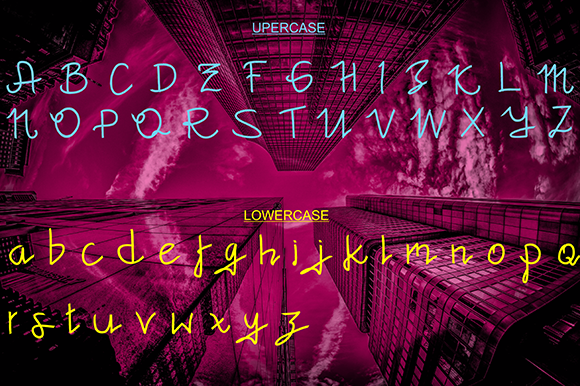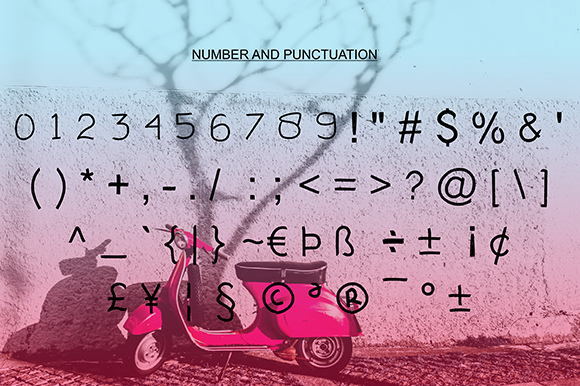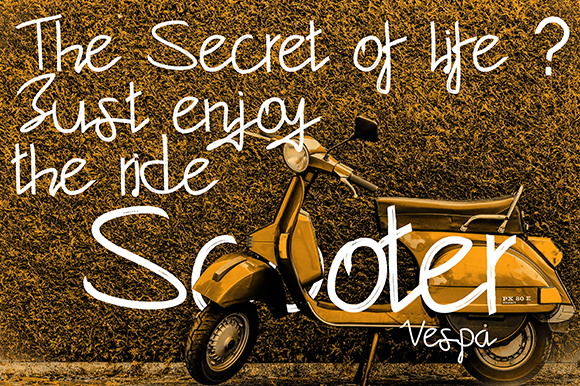
Kanggap Font
About Kanggap Font
Kanggap is a trendy and casual handwritten font. It is suitable for any branding, product packaging, invitation, quote, t-shirt, label, poster, logo that you wish to create.